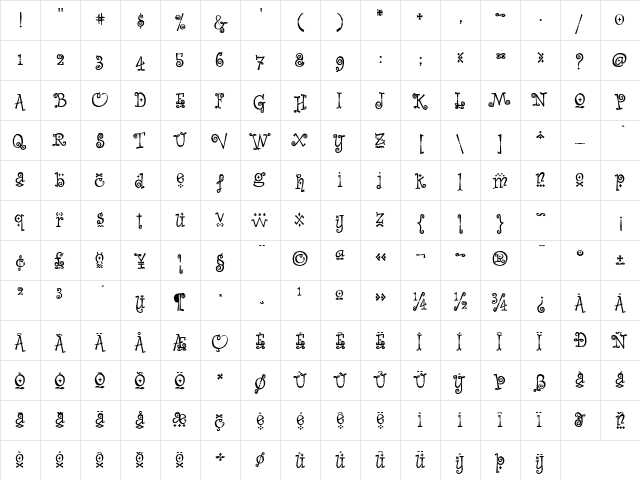
Whimsy Baroque ICG Regular
Design Context for Whimsy Baroque ICG Typeface
Whimsy Baroque ICG is a composed and adaptable typeface that performs quietly and consistently across a wide range of design contexts.
Pro Tip: Use Whimsy Baroque ICG in both headline and body roles to test its range before committing to a single application.